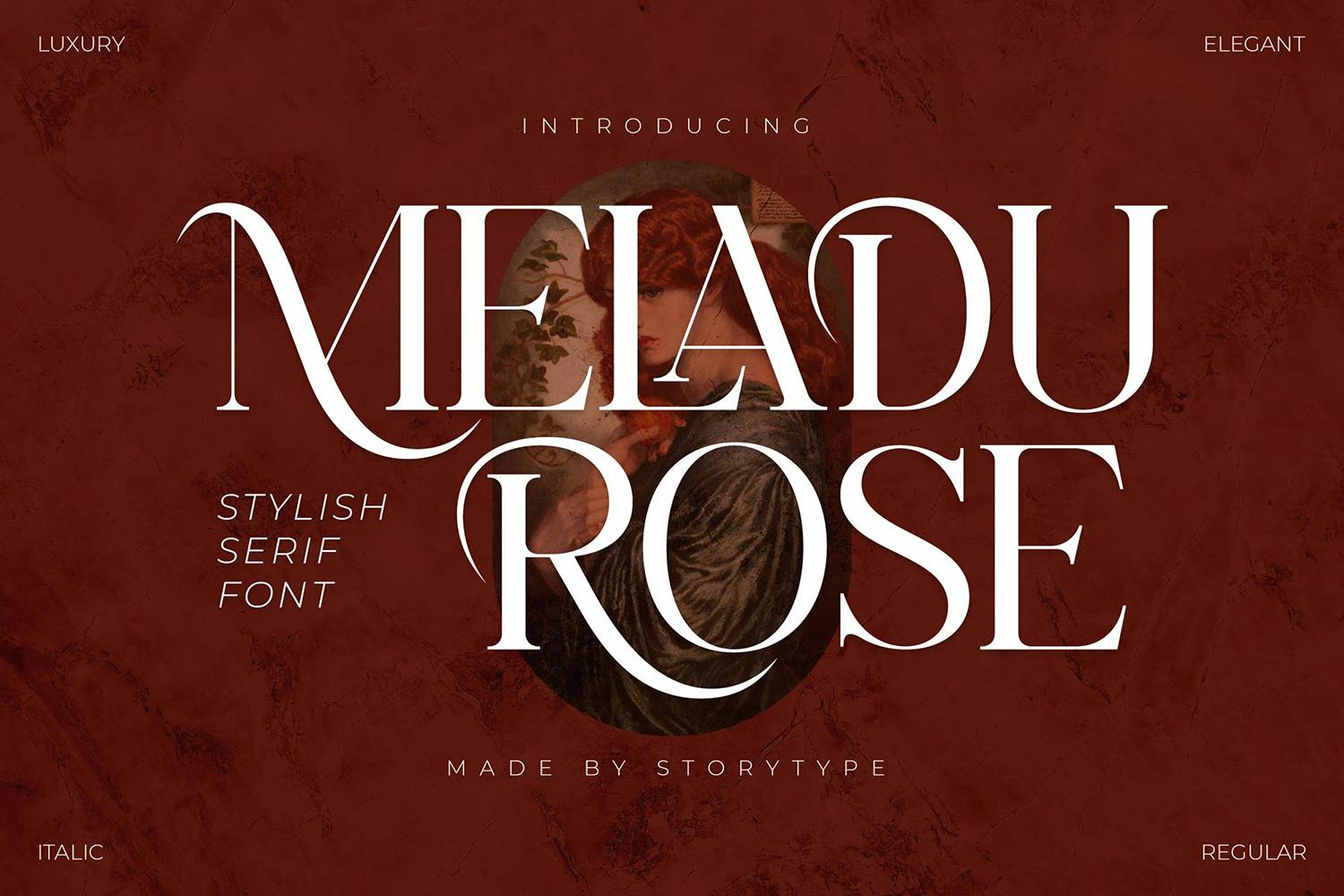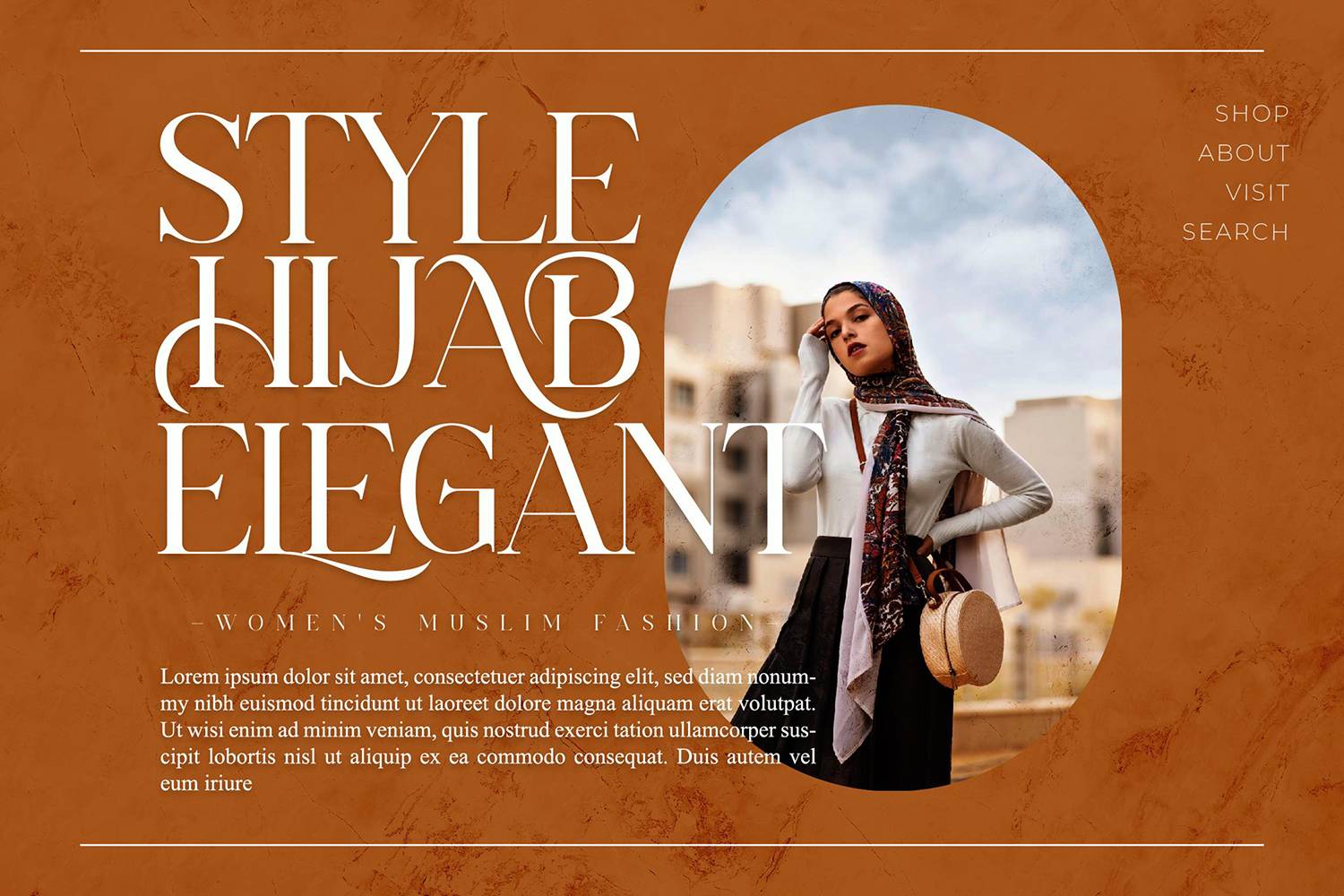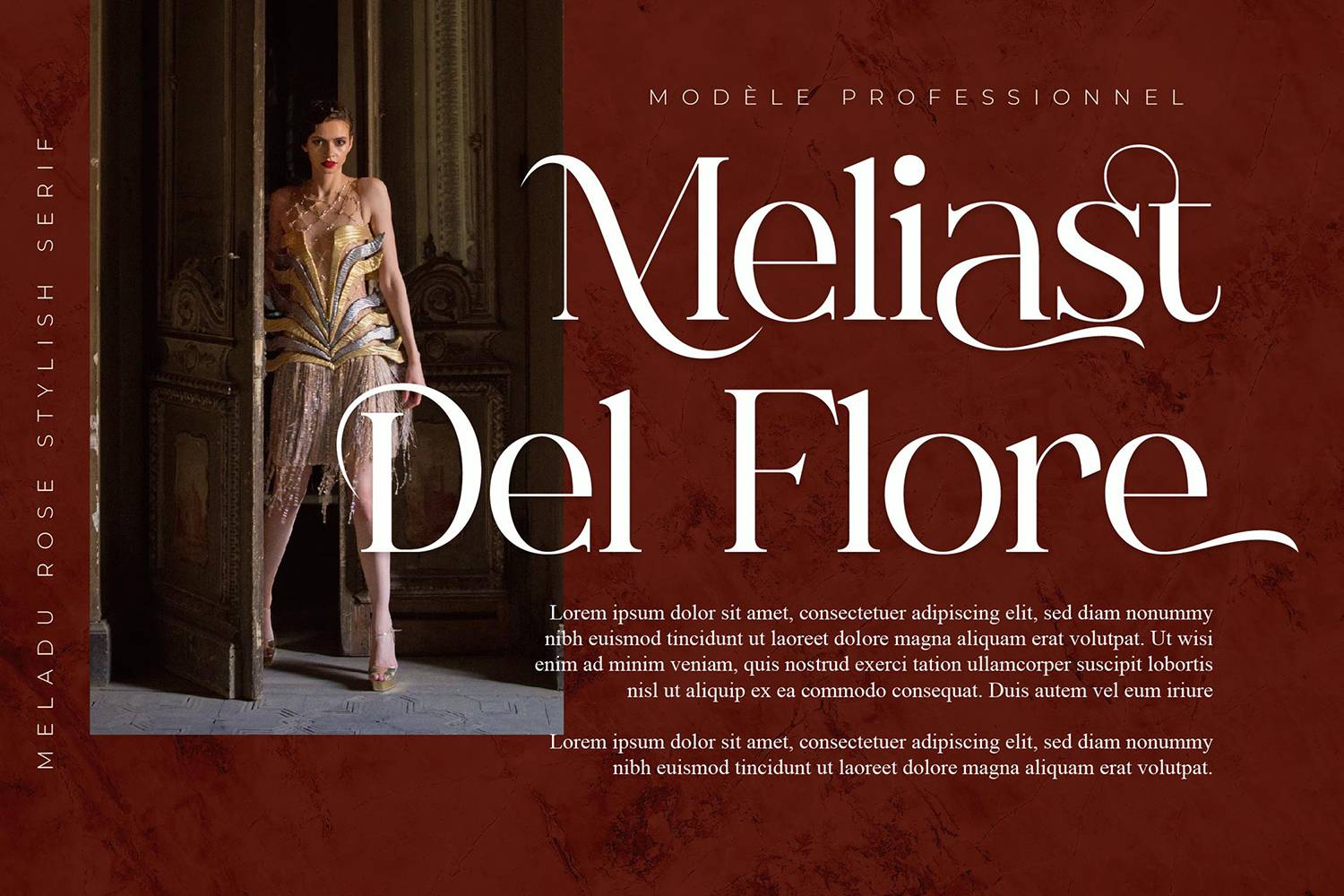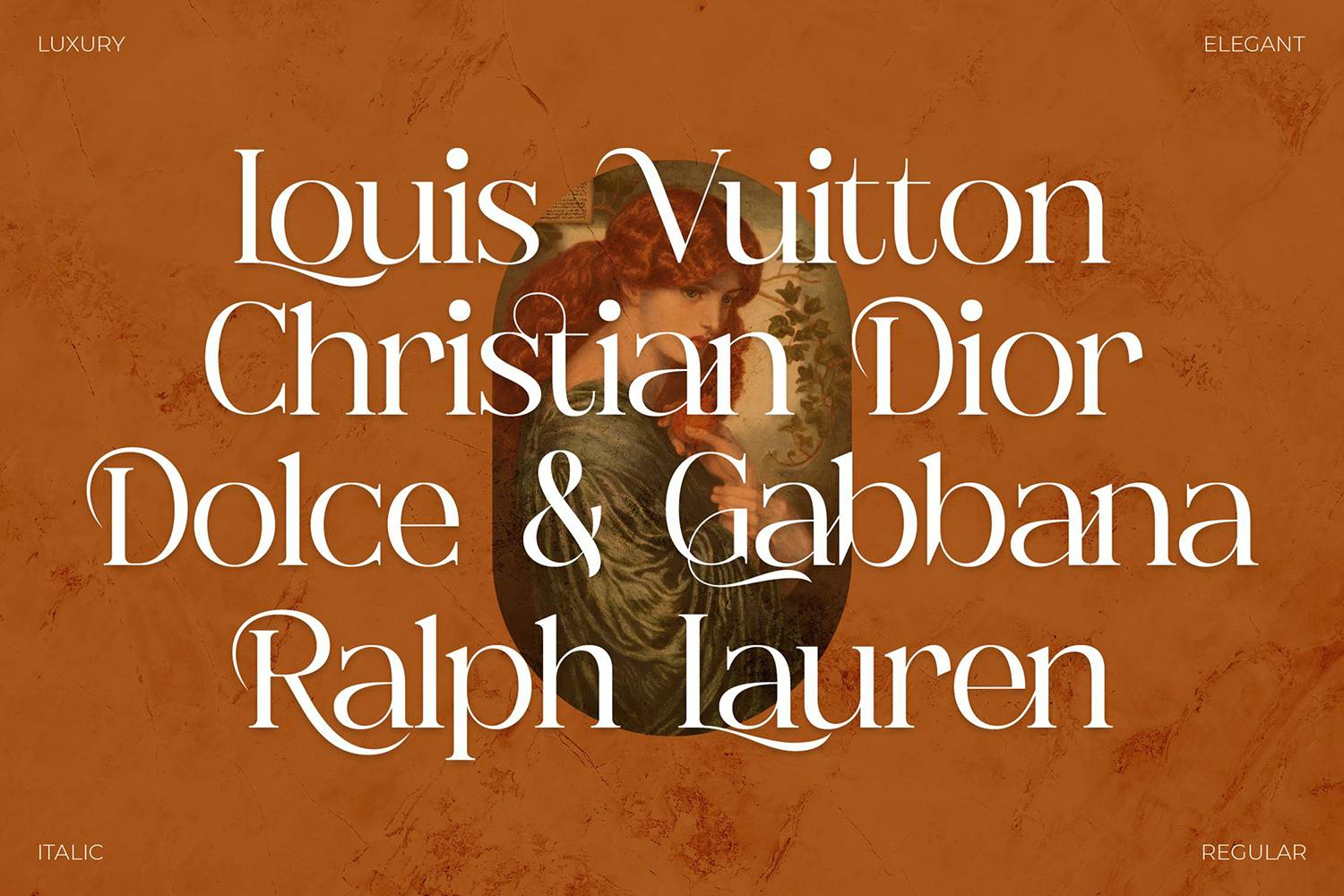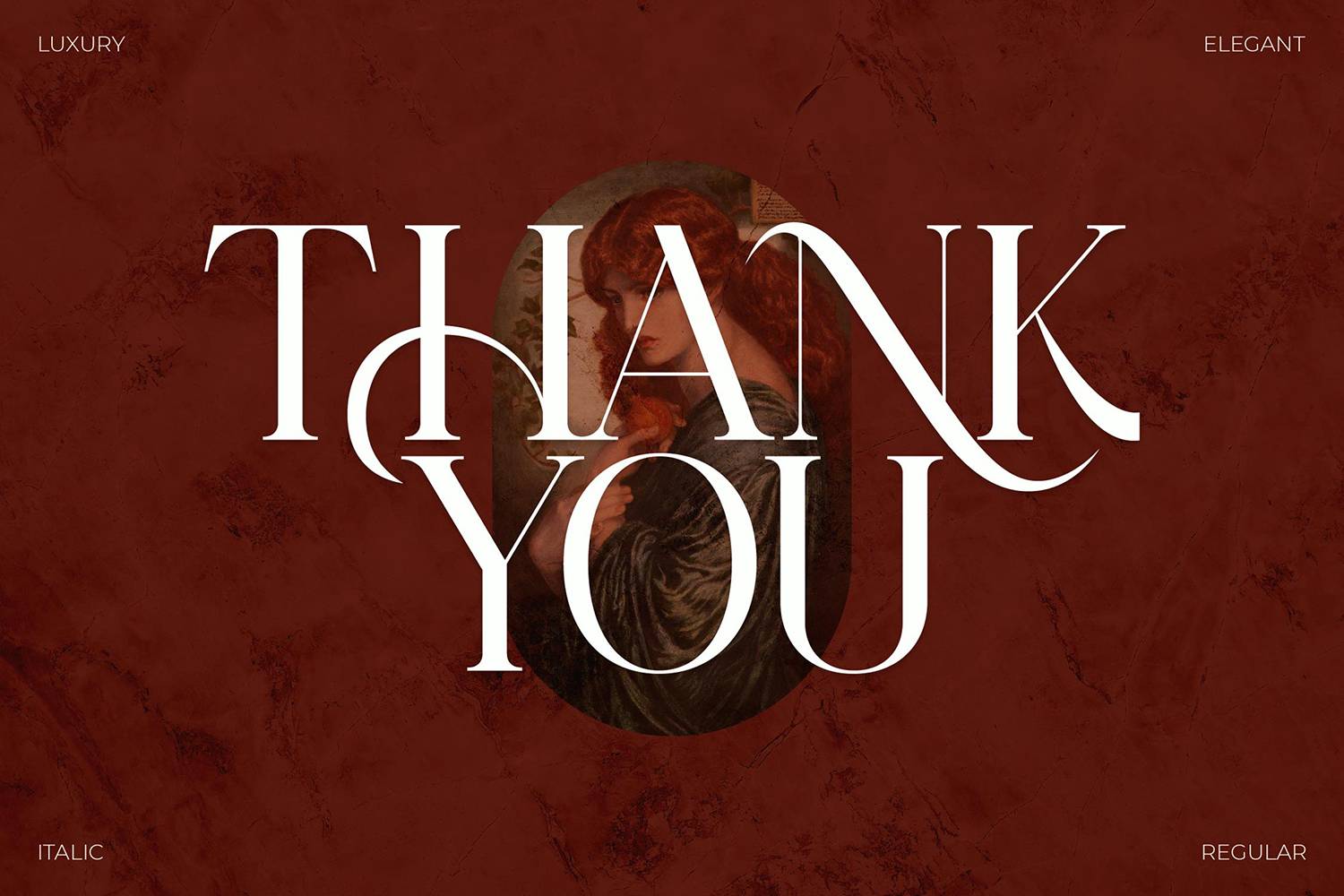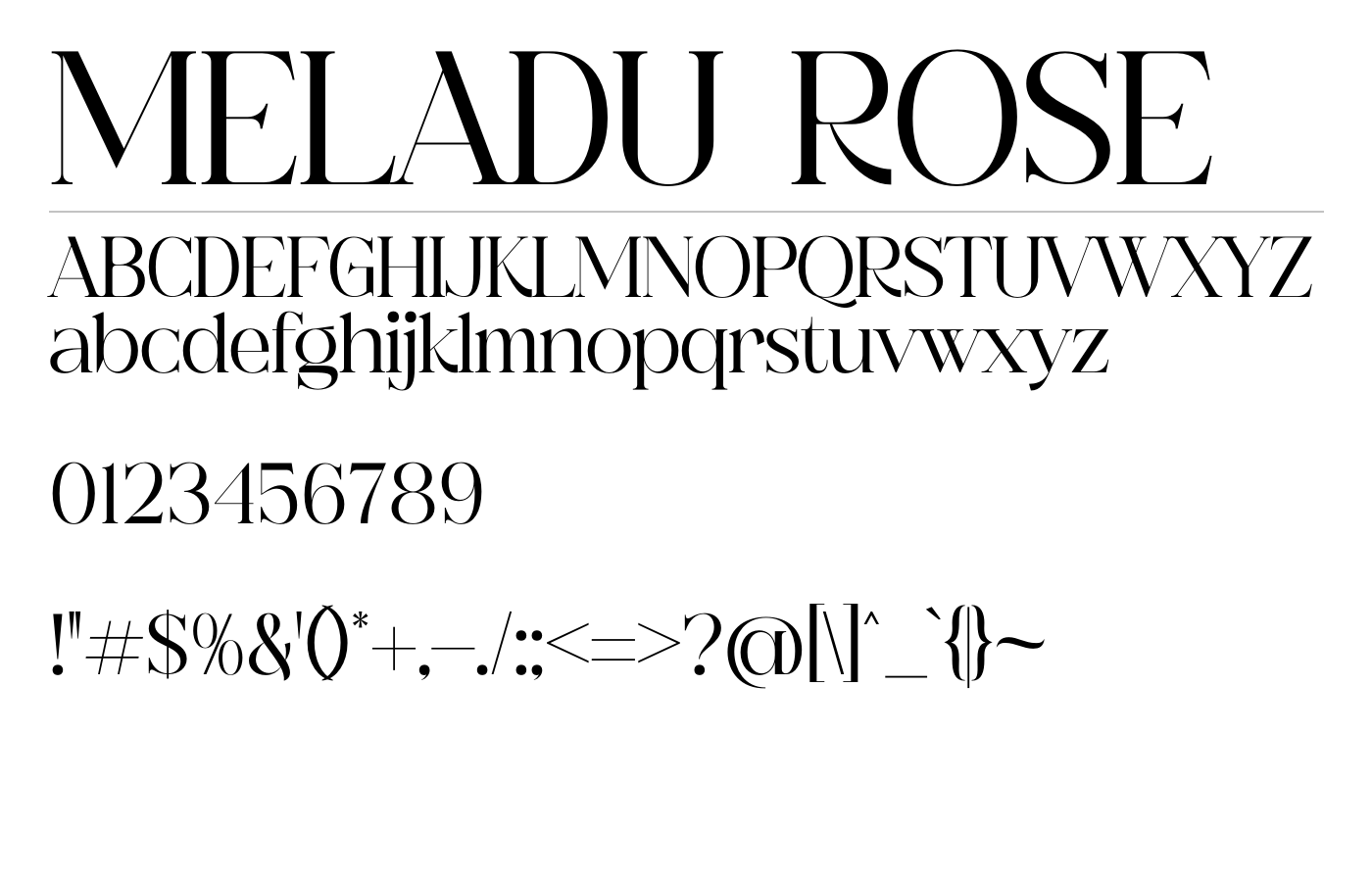
Meladu Rose is a refined serif font characterized by its high contrast between thin and thick strokes, elegant bracketed serifs, and tall, slender letterforms that evoke a sophisticated and timeless feel. Its delicate balance of modern sharpness and classic beauty makes it an excellent choice for luxury branding, editorial headlines, and fashion packaging where elegance and style are paramount.
Meladu Rose Font
About Meladu Rose Font